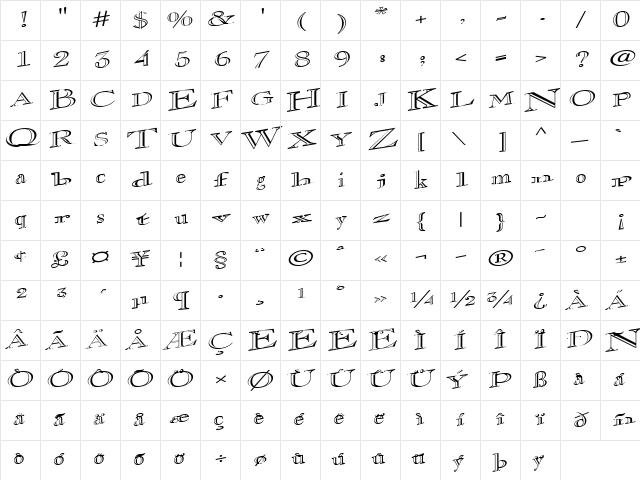
TwoShakes5 Regular
Design Context for TwoShakes5
TwoShakes5 is a composed and adaptable typeface that performs quietly and consistently across a wide range of design contexts.